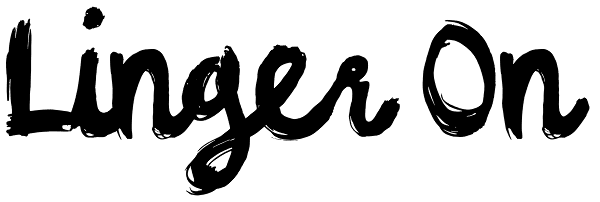
Linger On
Linger On is a handwritten fairly rough brush script. It’s equipped with some Open Type features and an extra set of the most common used letters. It also includes lines and endings for you to have more fun with and make Linger On even more unique.